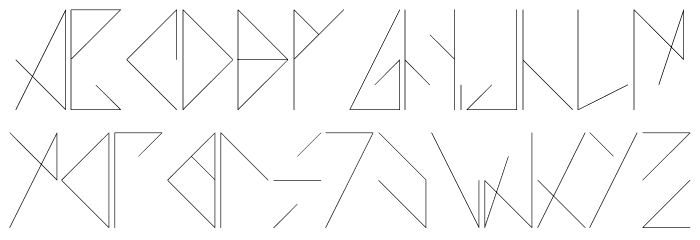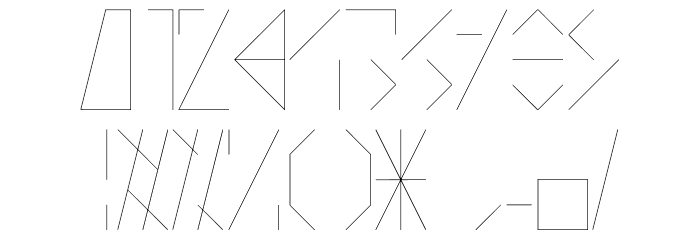
AZO - Tipografia normal Font
This font features a highly geometric and minimalistic design, characterized by its use of straight lines and sharp angles. Each character is constructed with a series of intersecting lines, creating a futuristic and abstract appearance. The font lacks curves, giving it a stark and modern look. The uppercase and lowercase letters share a consistent style, maintaining the same angular and linear aesthetic. Numbers and special characters follow the same design principles, ensuring uniformity across all glyphs. The overall style is reminiscent of architectural blueprints or technical drawings, making it stand out with its unique and avant-garde approach.
A geometric, minimalistic font with sharp angles and straight lines.
- Font: AZO - Tipografia normal
- Proposed Projects: Ideal for modern art projects, tech branding, futuristic designs, and architectural presentations.
- Weight: Light
- Character Spacing: Wide
- Use Case: Logos, Posters, Headlines